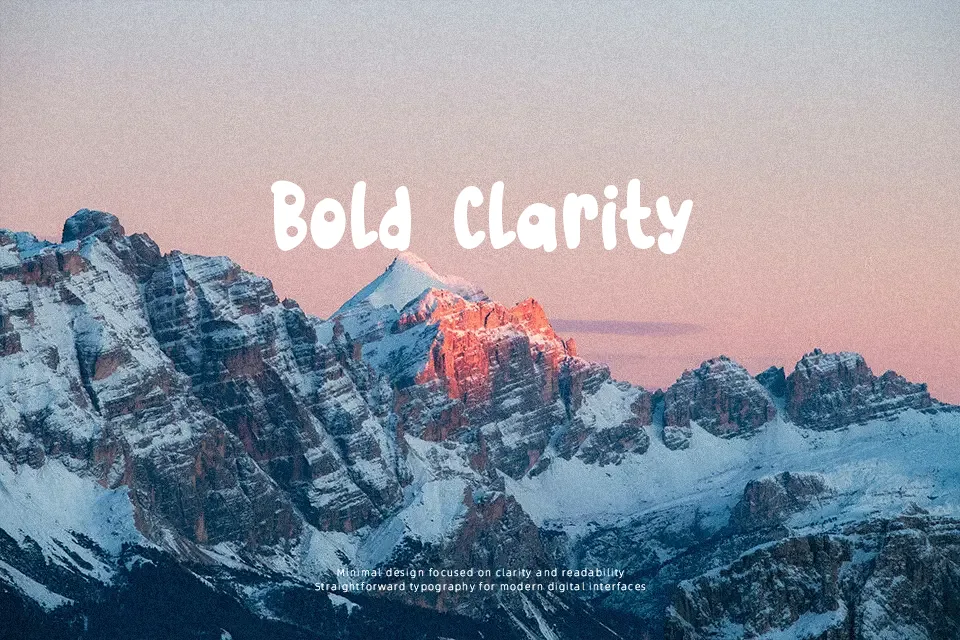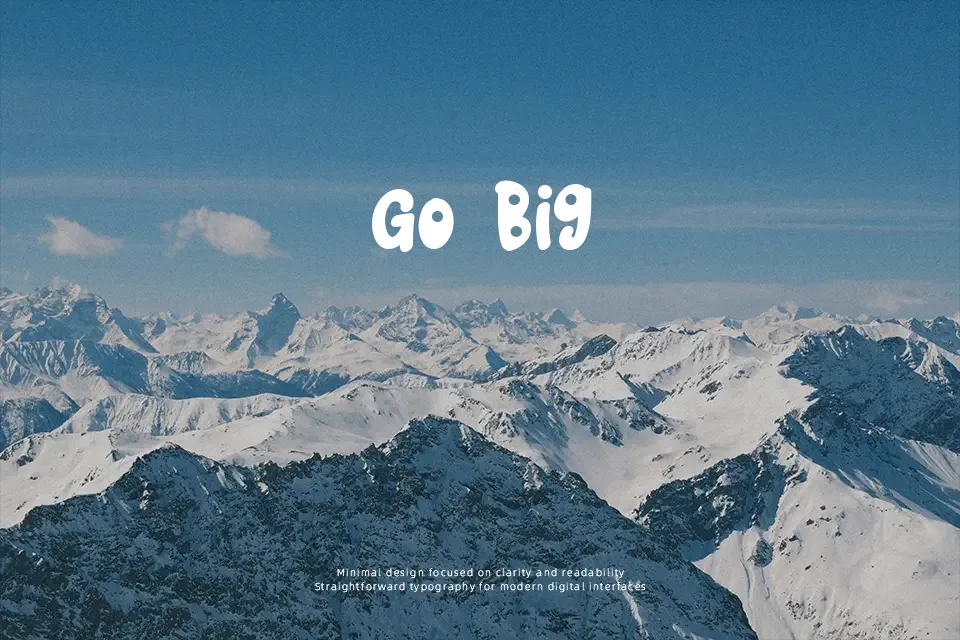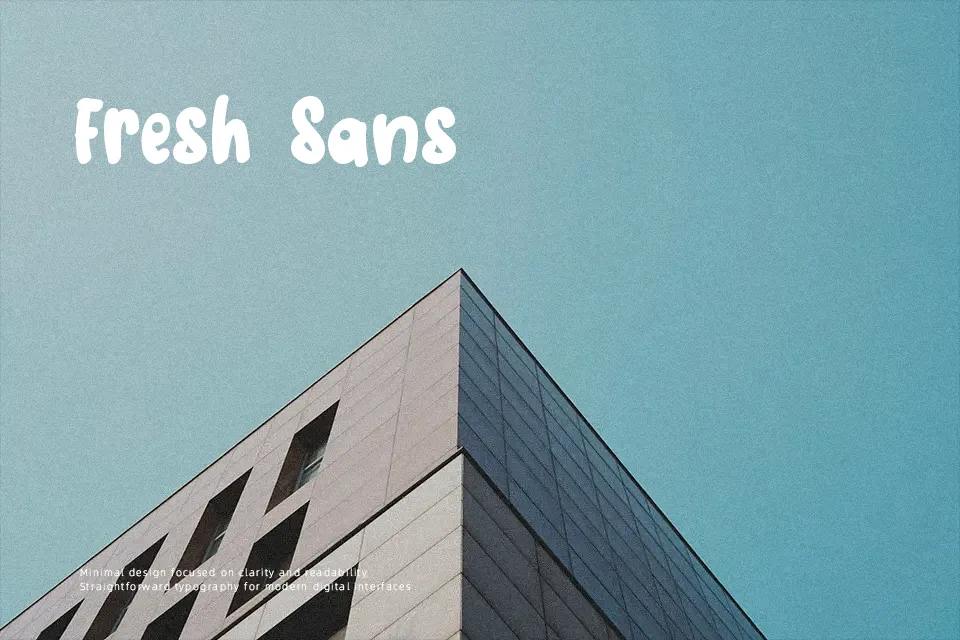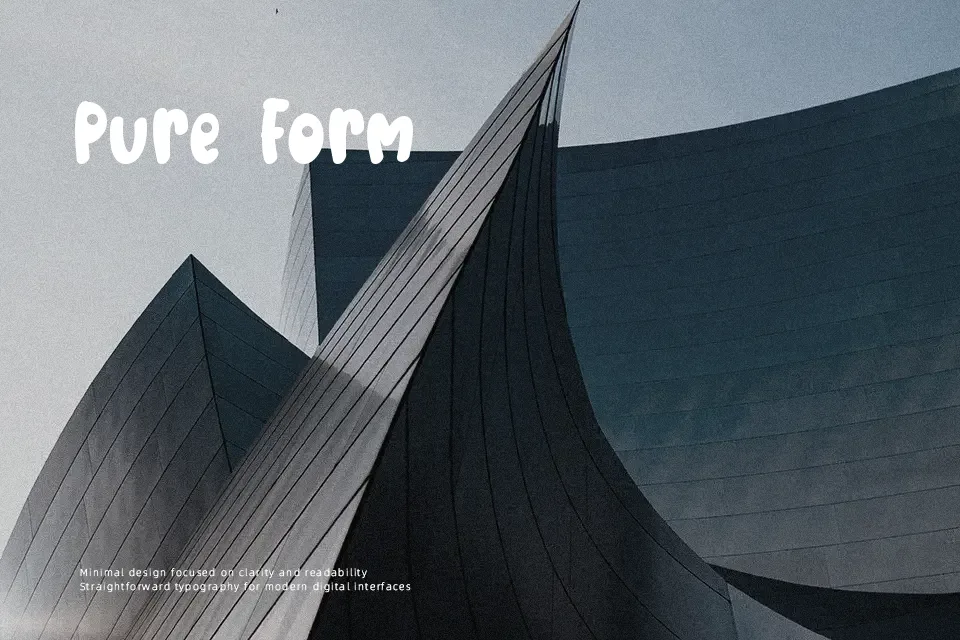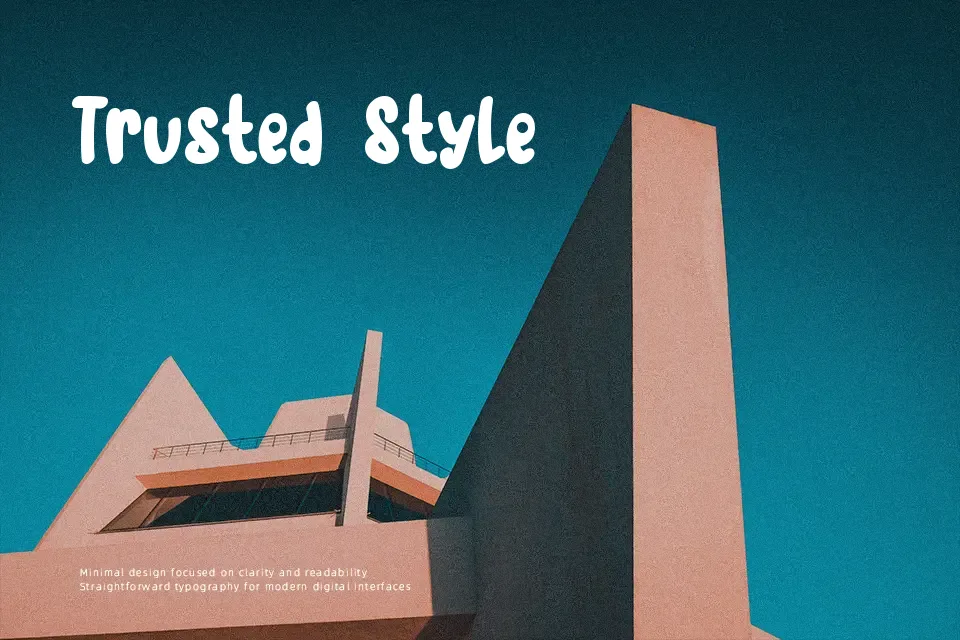
Star Space Font
Star Space Font is built around massive, inflated letterforms characterized by exceptionally thick strokes and curved outer outlines. The characters feature compressed interior counters and tight horizontal spacing, creating a dense typographic texture with continuous rhythmic weight. Proportions remain stocky and uniform throughout the uppercase set, ensuring strong legibility in brief display headers and thematic graphic artwork. The heavy geometry helps maintain visual prominence in arcade banners, playful product packaging, and toy branding. However, the extreme weight and restricted counter spaces significantly reduce readability in continuous body text and compact digital interfaces.
– children’s toy packaging
– animated movie title cards
– casual mobile game headers
– novelty sticker designs
– multi-page editorial body copy
– corporate contract documentation
– mobile app navigation menus
– small caption text